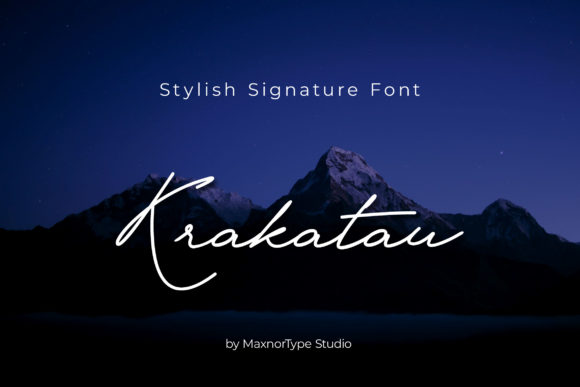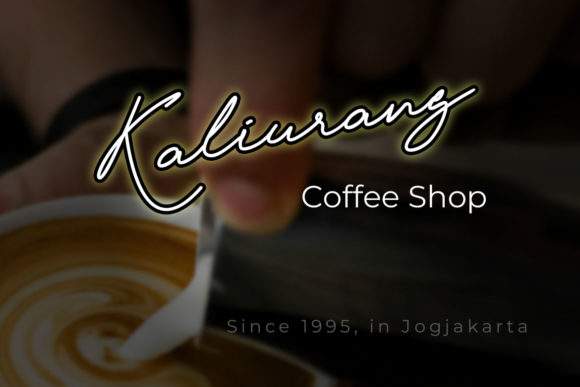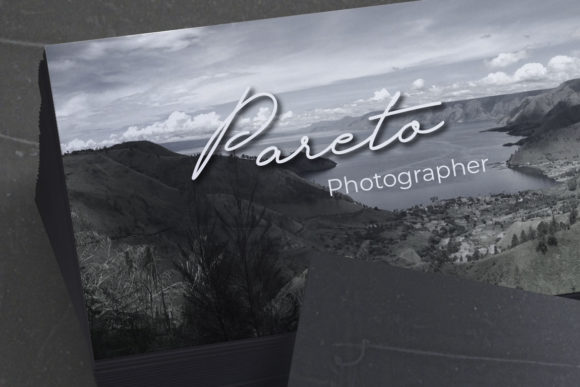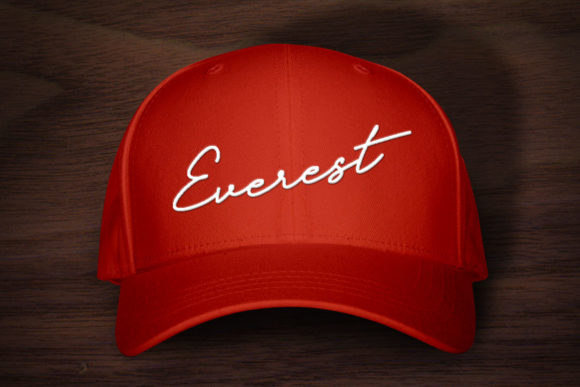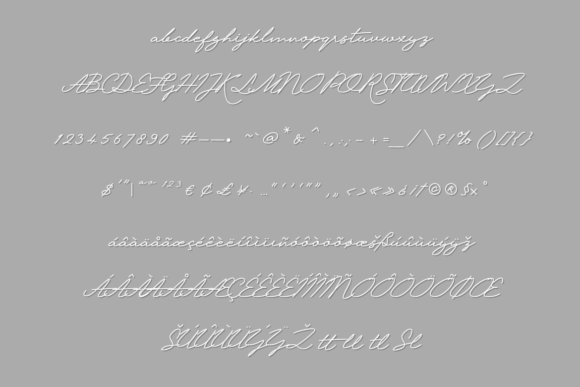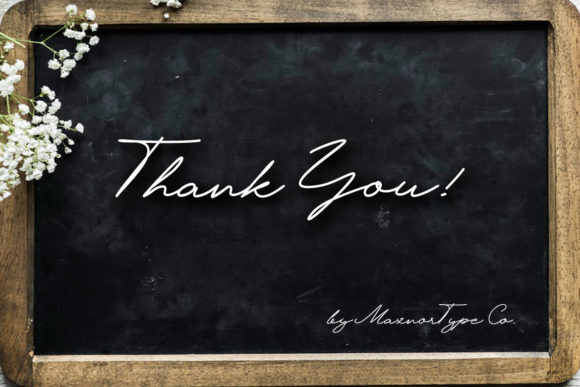
Krakatau Font
About Krakatau Font
The Krakatau is a beautiful handwritten typeface. Its signature style is perfect for adding a natural touch to your logos, branding, invitations, covers, and much more!